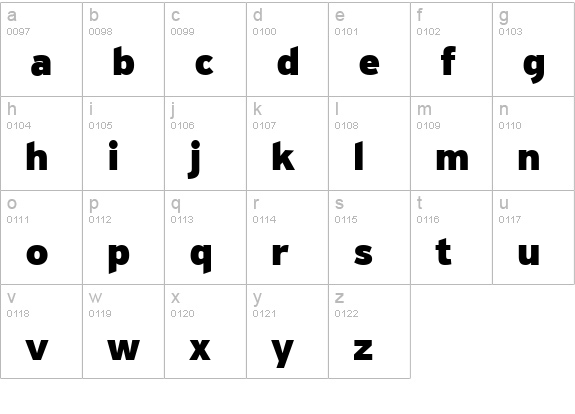
PFHighwaySansPro-Black is a maximum-weight, dramatic variant in the PFHighwaySansPro typeface family \xE2\x80\x94 well suited to maximum-impact headlines, posters, and packaging.
PFHighwaySansPro-Black is a sleek and modern font that commands attention with its bold and powerful appearance. This typeface exudes confidence and strength, making it perfect for headlines, posters, and other design projects that require a strong and impactful look. What sets PFHighwaySansPro-Black apart is its versatility - it can be used for both digital and print applications, and its clean lines and sharp edges ensure readability even at larger sizes. Whether you're designing a cutting-edge website or creating eye-catching marketing materials, this font is sure to make a bold statement. The best part? PFHighwaySansPro-Black is completely free to download at FontsMarket.com. So go ahead and add this dynamic font to your collection today and take your designs to the next level with its striking presence.